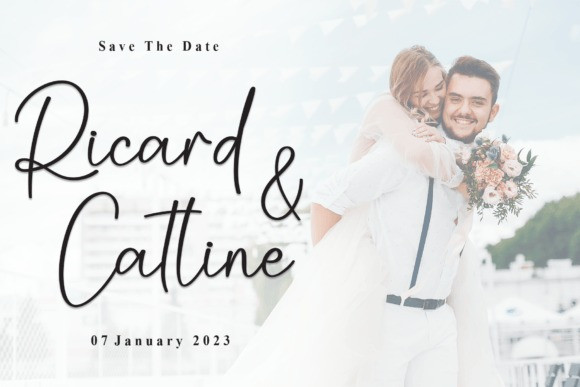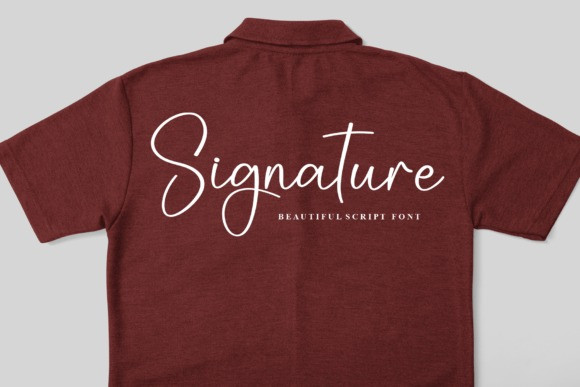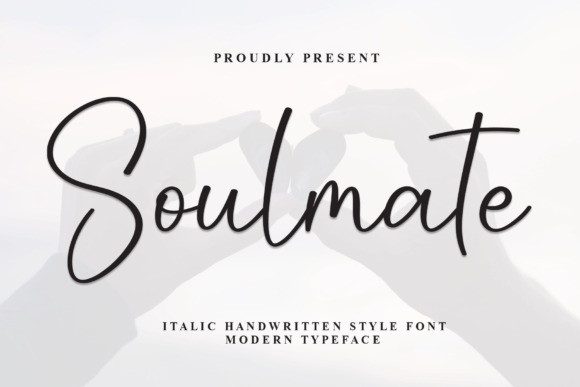
Soulmate Handwritten Font
Soulmate Handwritten Font is a sweet and cursive handwritten font. This gentle font will look gorgeous on a variety of design ideas. It will add a joyful and romantic touch to each of your projects!